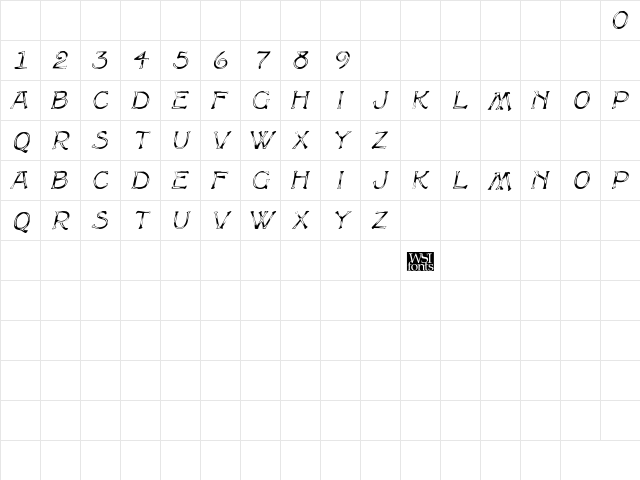
CammyCapsDisplay Italic
Design Context for CammyCapsDisplay Typeface
CammyCapsDisplay brings ornamental detail and strong personality to headlines and identities, where visual impact matters more than quiet functionality. The slanted form adds forward momentum and visual energy.
Font Pairing: Pair with a clean neutral sans-serif for body copy to let CammyCapsDisplay's character lead without overwhelming the composition.
Pro Tip: Treat CammyCapsDisplay as the centrepiece of your typographic hierarchy. One strong heading set in a decorative face can carry an entire layout.